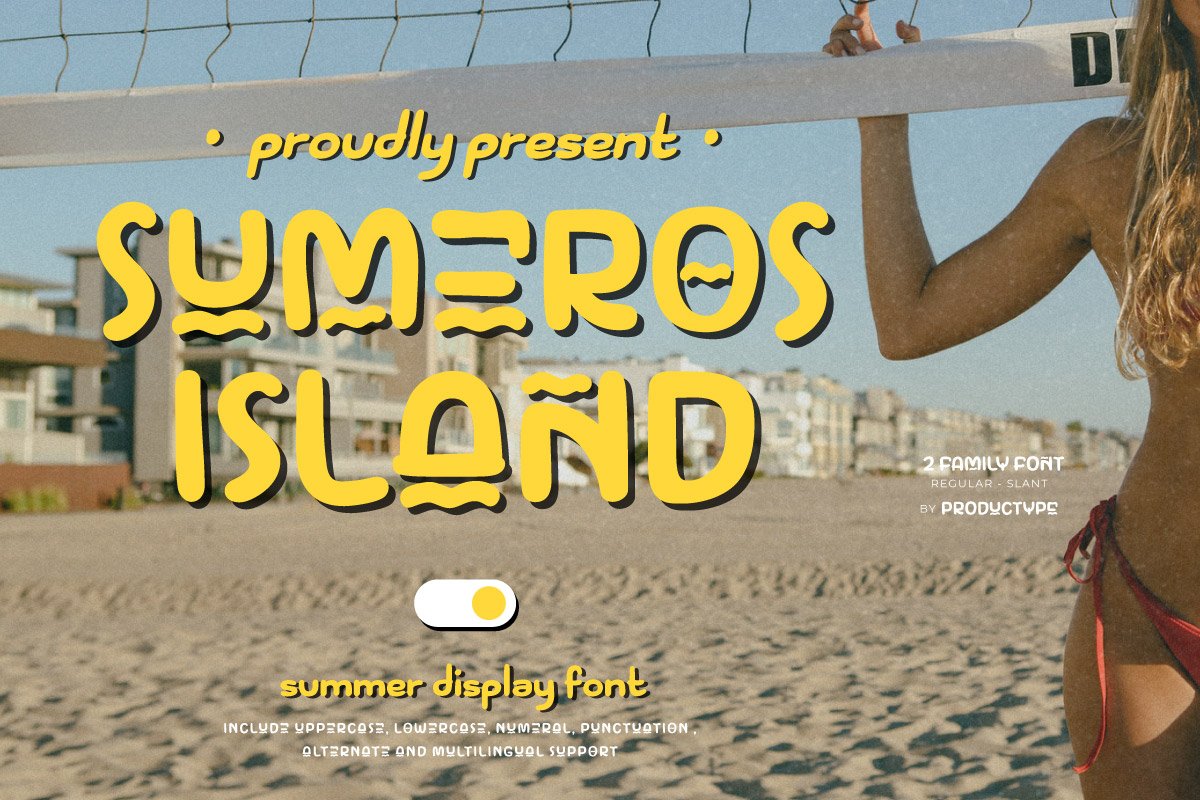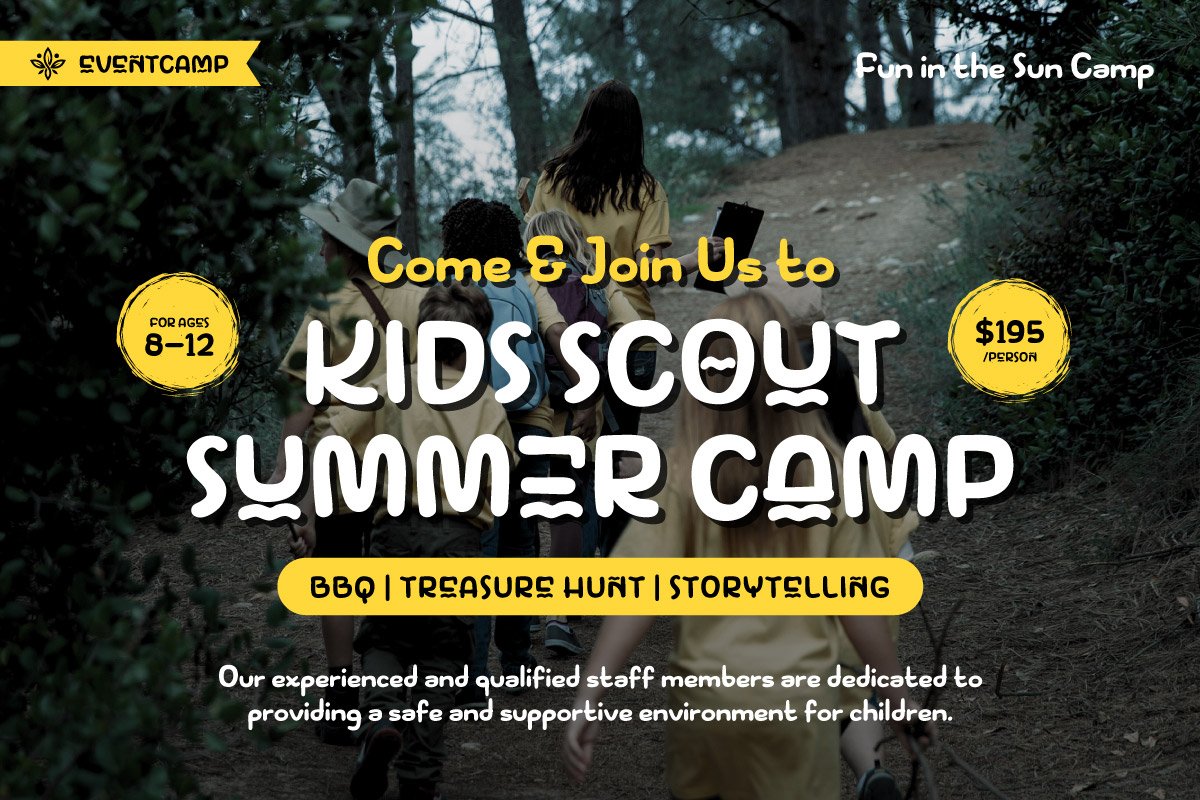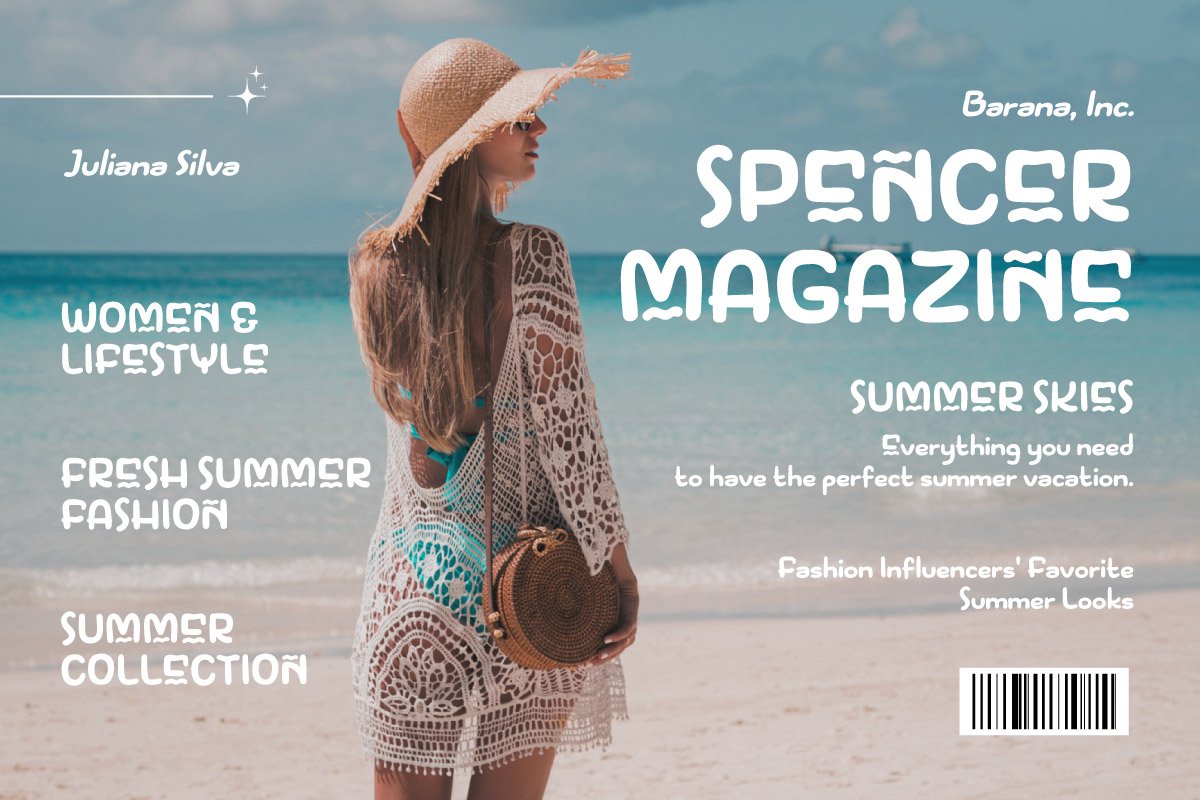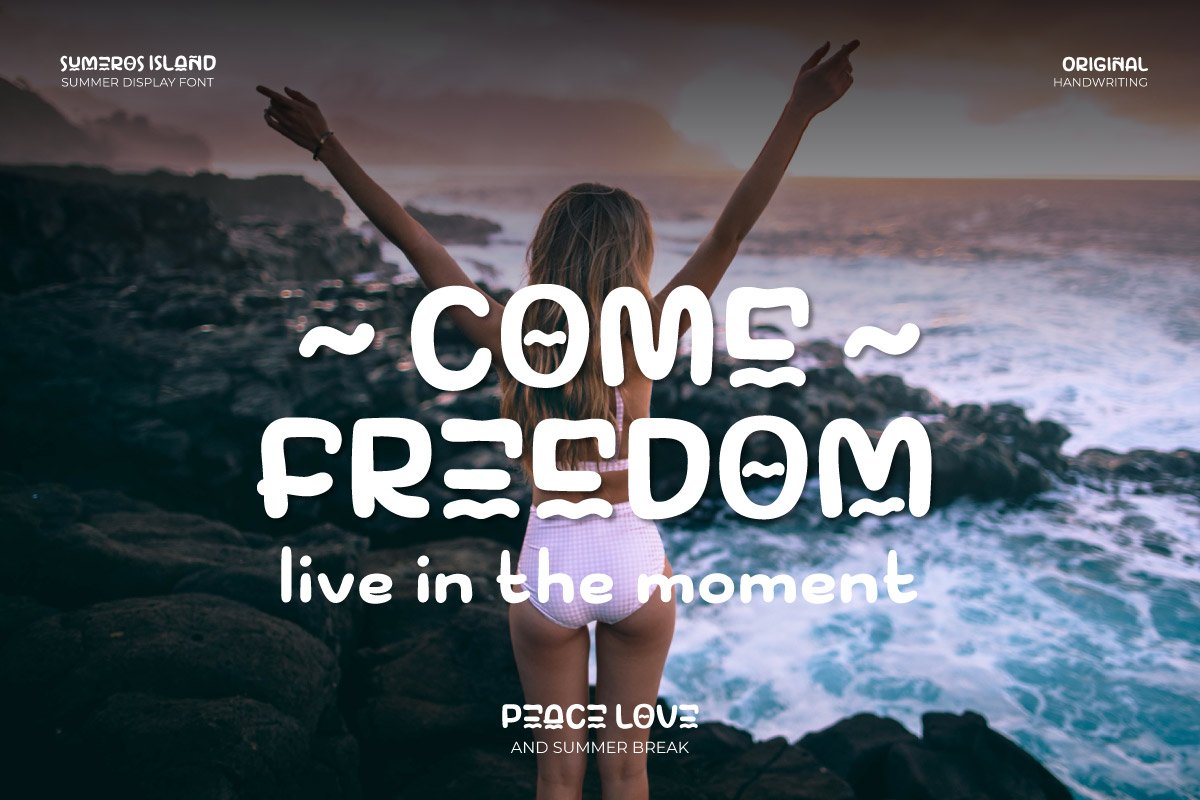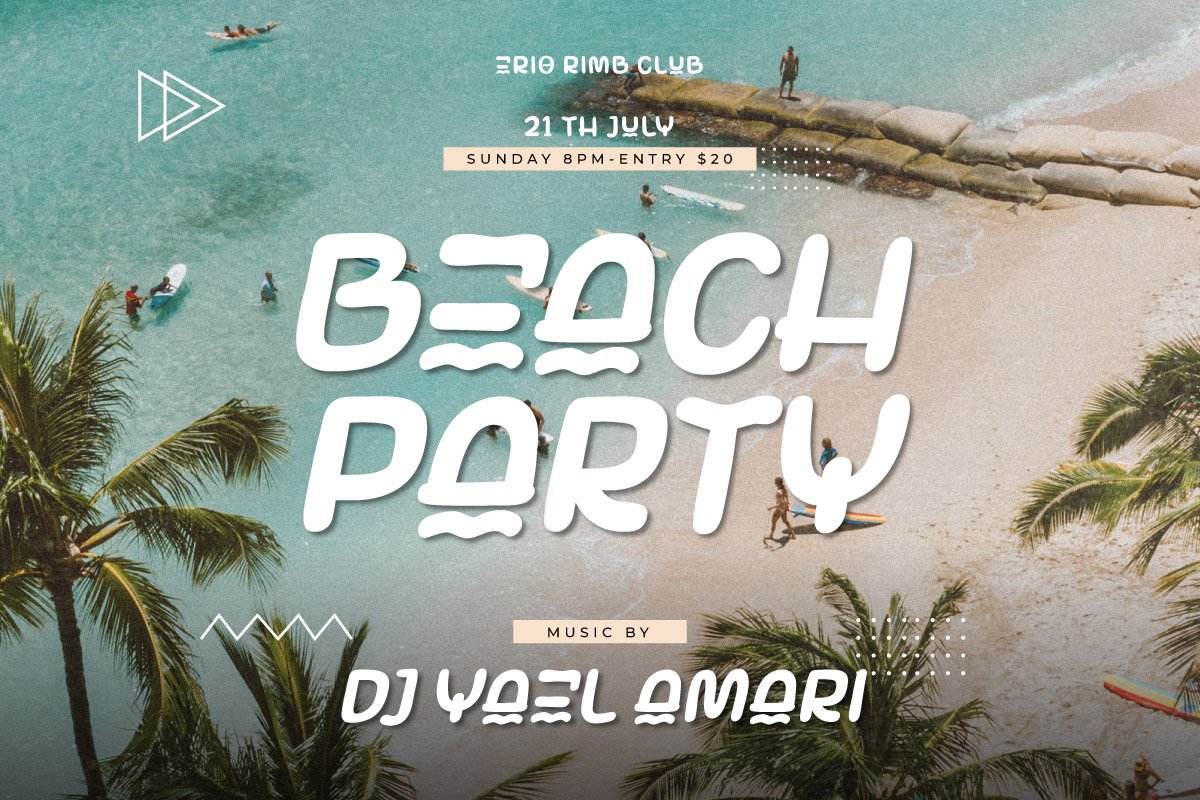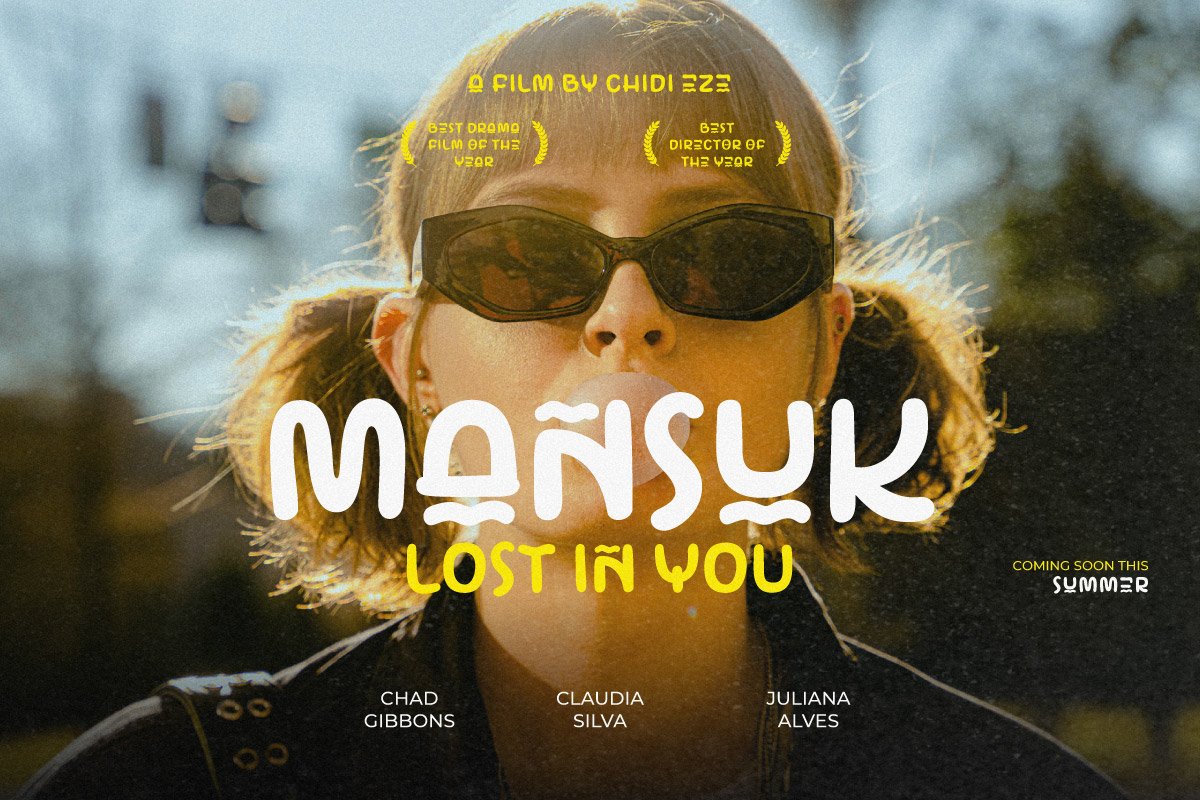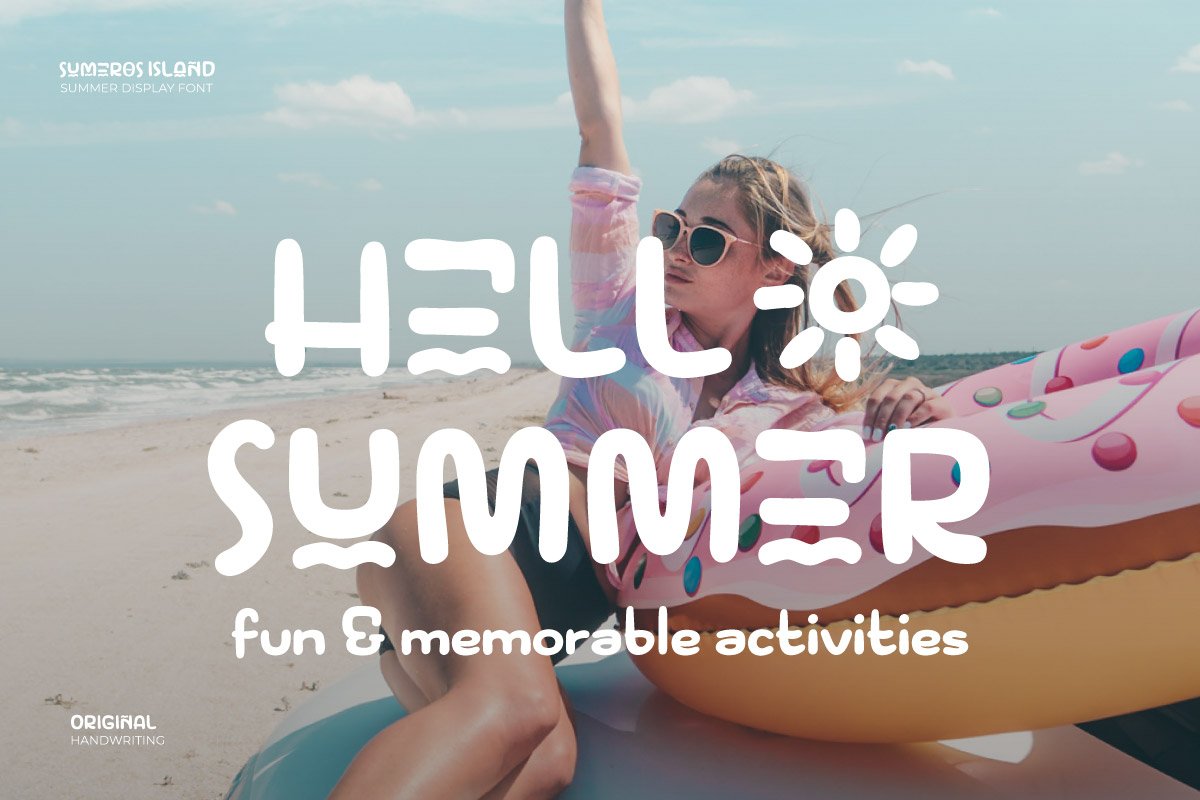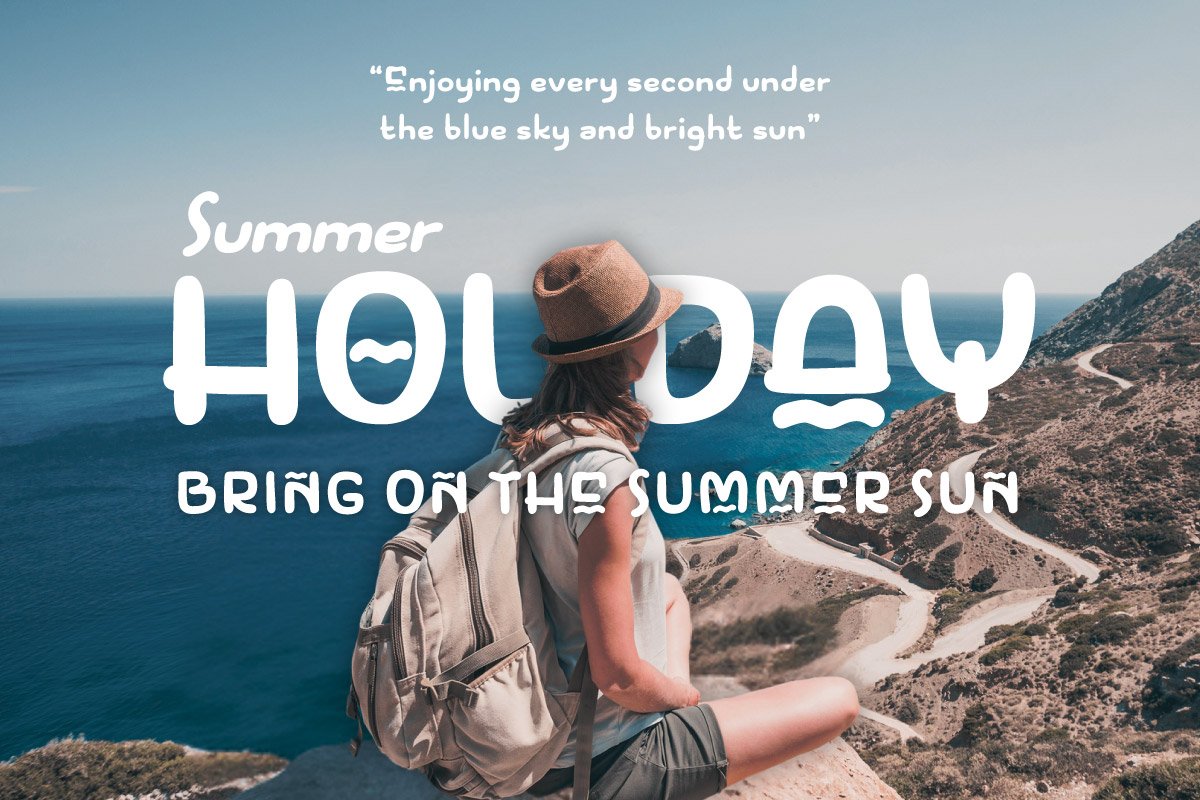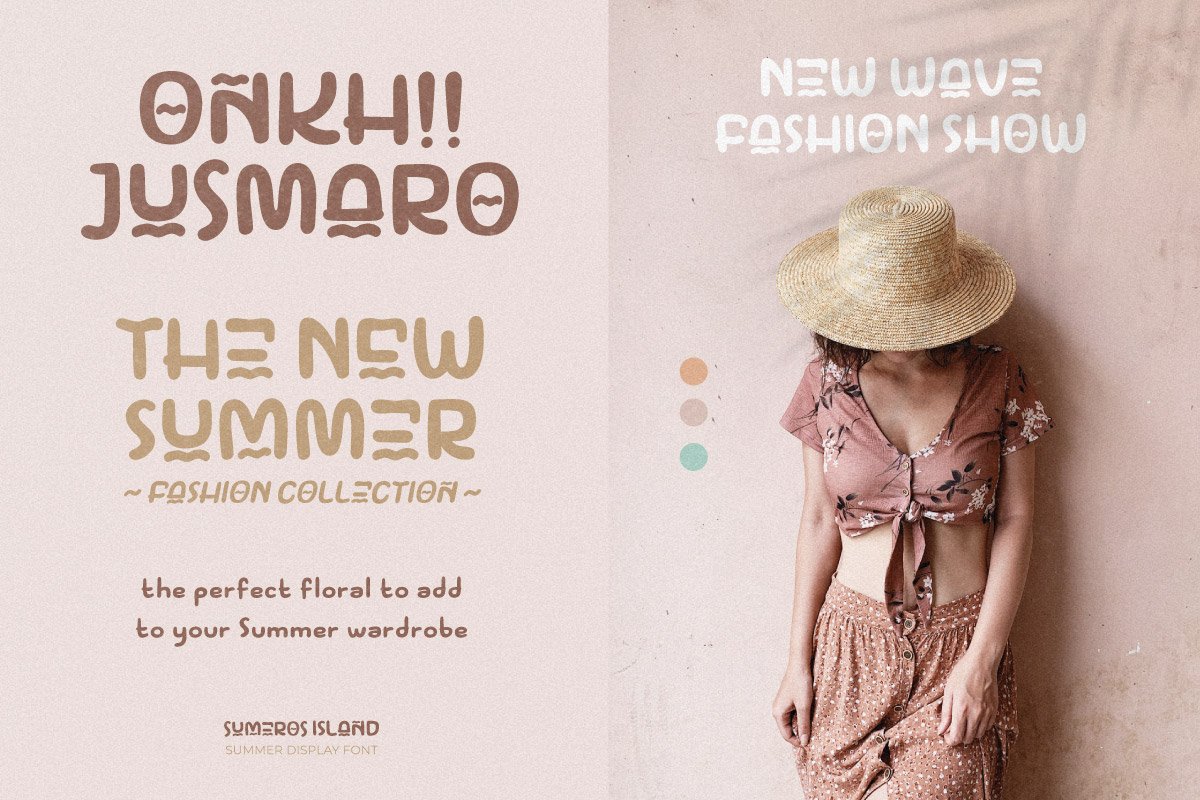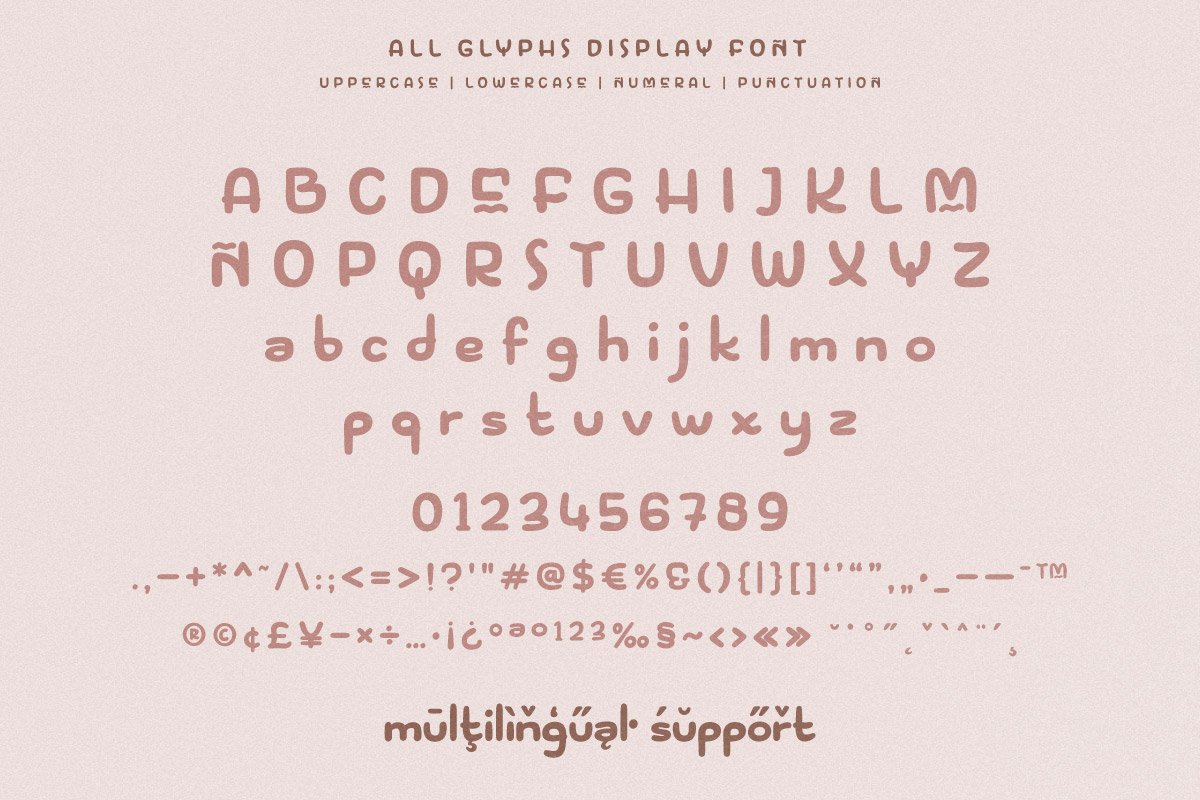
Sumeros Island – Display Font
Sumeros Island is a fun, vibrant, and carefree hand-drawn display font that perfectly captures the essence of summer. With its playful strokes and relaxed design, this font is ideal for tropical-themed projects, beach party invitations, summer branding, travel posters, and sunny vacation promotions.
Inspired by the warmth of the sun, ocean waves, and island adventures, Sumeros Island radiates joy and positivity. Its handcrafted style adds a touch of authenticity, making your designs feel fresh, lively, and full of energy. Whether you’re working on summer apparel, surf club logos, beach bar menus, or festival posters, this font will bring a fun and breezy atmosphere to your project.
Let Sumeros Island be your go-to font for any sunny, tropical, and beach-inspired design. Feel the ocean breeze and bring the island vibes to your next creative work!